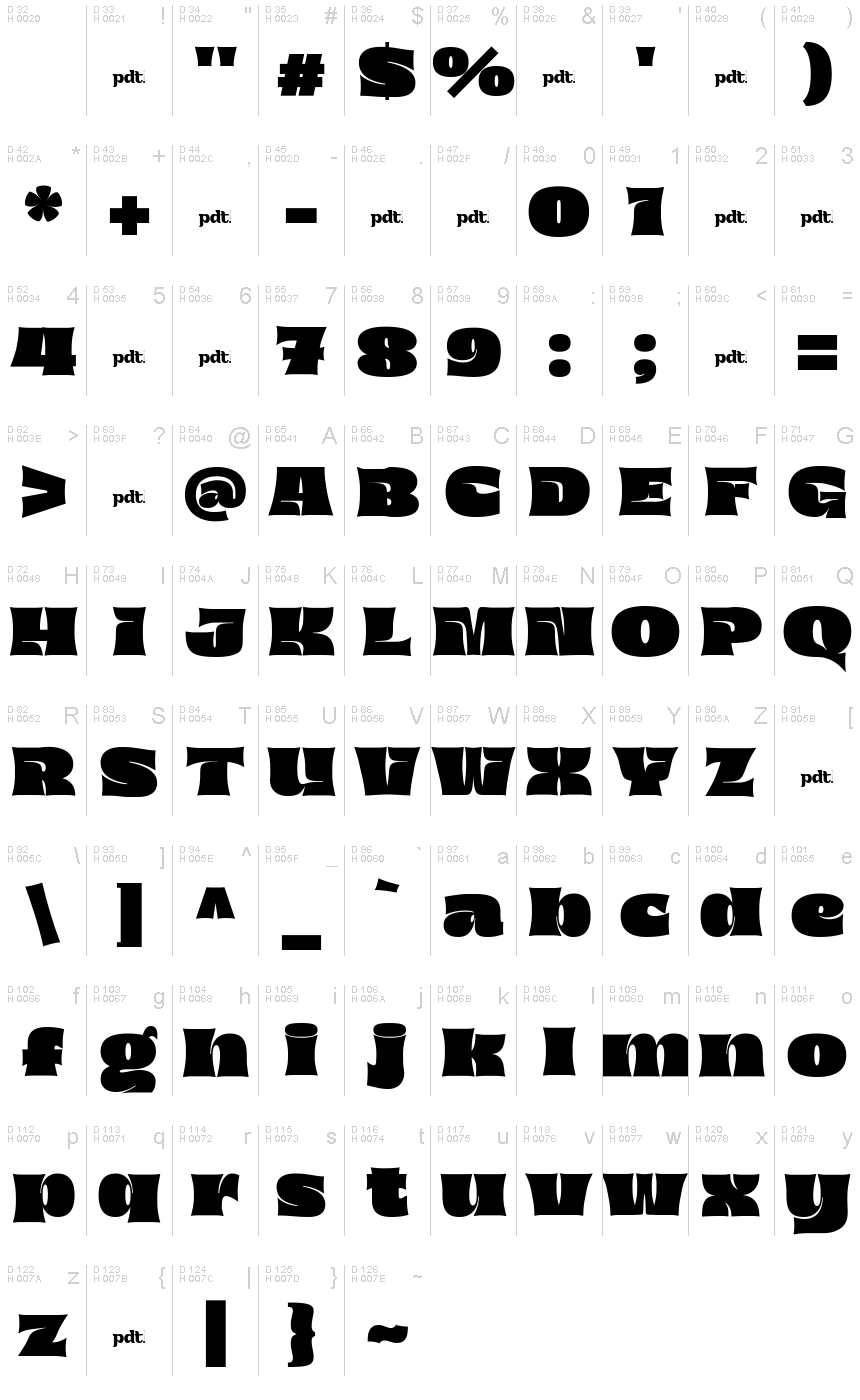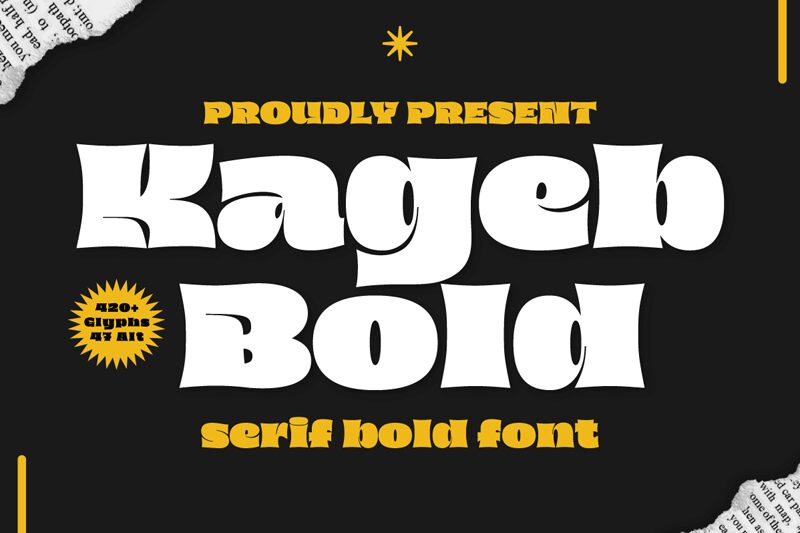
Kageb Boldtrial Regular
Kageb Bold font by Productype is a playful yet bold serif typeface with retro and chunky geometric letterforms. This expanded free display font creates unique texts that give an overall impression of cheerfulness and ameliorated enjoyability. Each character has its own style as well as its smooth display element.